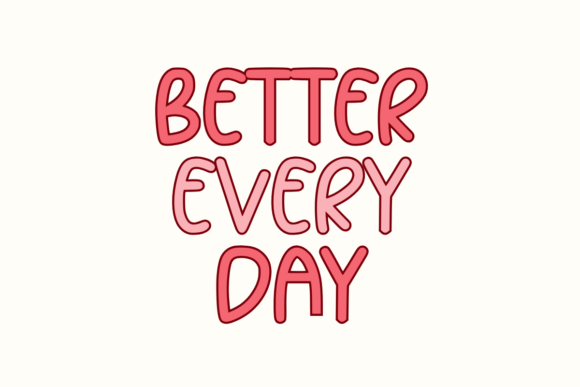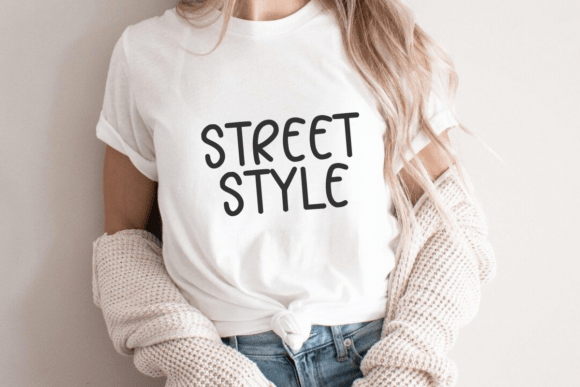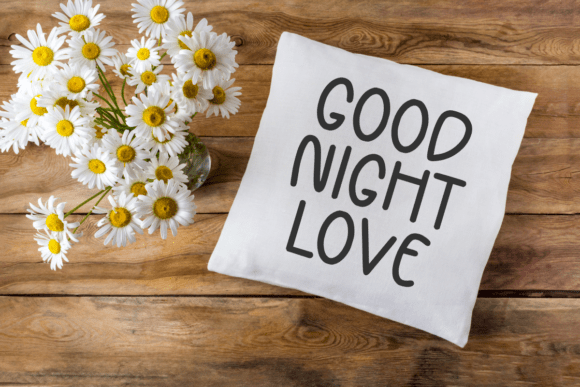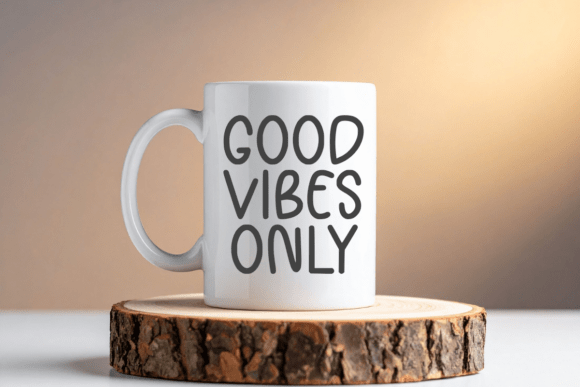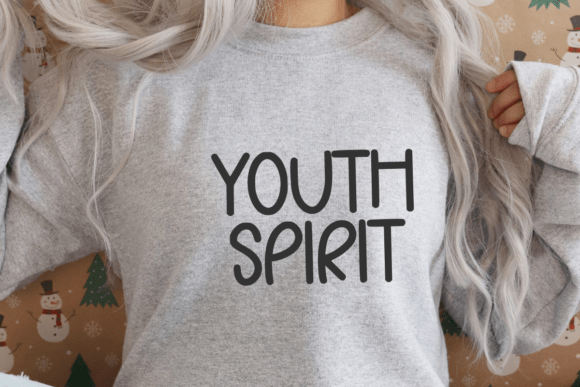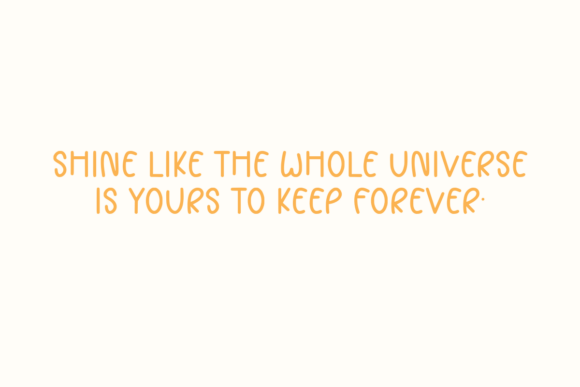
The Joy of Children Chunky Font: A Designer’s New Best Friend
I still remember the day I stumbled upon the perfect font for my kid’s DIY project. I was working on a custom worksheet for my little one’s school activity, and I just couldn’t find the right font. I tried searching online, browsing through font libraries, and even asked fellow designers for recommendations. And then, I discovered Children Chunky Font. It was love at first sight! 😍
This adorable sans serif handwriting font has a soft, friendly, and natural look that instantly won my heart. Its warm, handcrafted feel makes it perfect for craft projects, planners, stickers, kids’ worksheets, classroom printables, and DIY designs. In this article, I’ll share my experience with Children Chunky Font, its features, and how to make the most of it in your designs.
An Honest Review of Children Chunky Font
What I Love About Children Chunky Font ✨
- ✅ Simple strokes and smooth curves make it easy to cut using Cricut and Silhouette
- ✅ Perfect for crafting moms who love adorable handwritten styles
- ✅ Works beautifully for quotes, greeting cards, kids’ labels, coloring pages, worksheets, bullet journals, scrapbooks, and playful graphic projects
- ✅ Easy to read and understand, even for young children
- ⚠️ Limited character set, may not support complex languages
- ⚠️ Not suitable for formal or professional designs, best for creative and playful projects
- Experiment with OpenType features, such as glyphs and stylistic alternates, to add more personality to your design
- Explore OpenType features, such as ligatures and swashes, to add more flair to your design
The Story Behind Children Chunky Font
Children Chunky Font was designed with love and care by a talented font designer who wanted to create a font that’s both fun and functional. The designer’s inspiration came from childhood memories of playing with chalk on the sidewalk, creating art with friends, and making handmade crafts. The result is a font that’s perfect for creative projects, kids’ designs, and playful graphics.
Q: What is Children Chunky Font?
A: Children Chunky Font is a cute sans serif handwriting font designed with a soft, friendly, and natural look.
Q: Can I use Children Chunky Font for my kid’s school project?
A: Absolutely! Children Chunky Font is perfect for kids’ worksheets, coloring pages, and school projects.